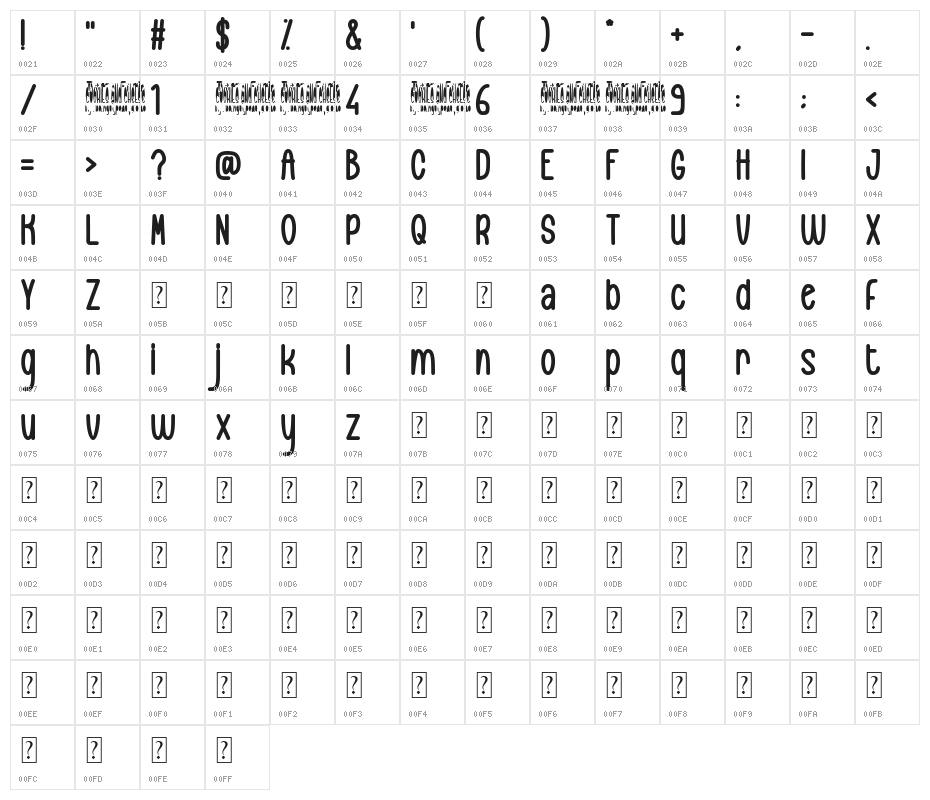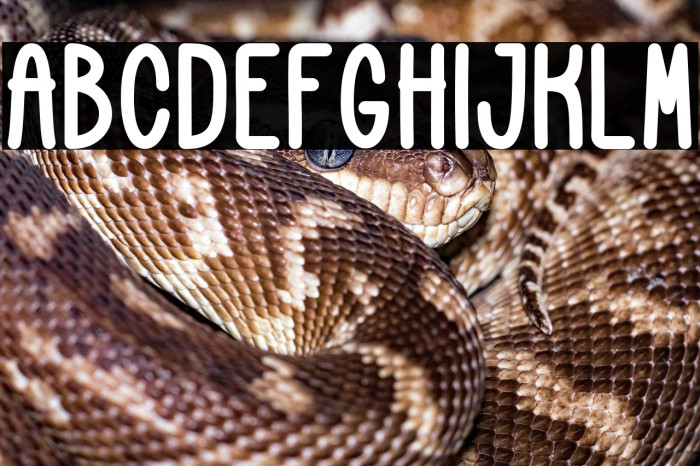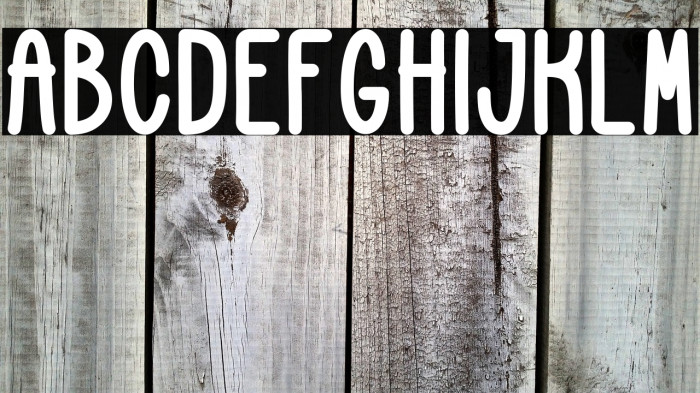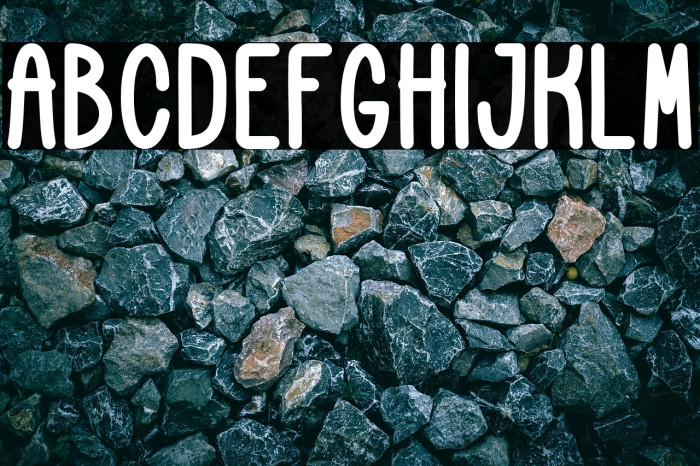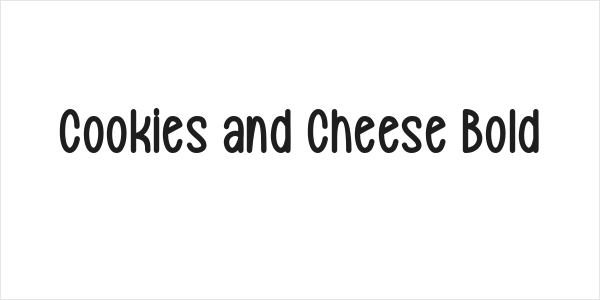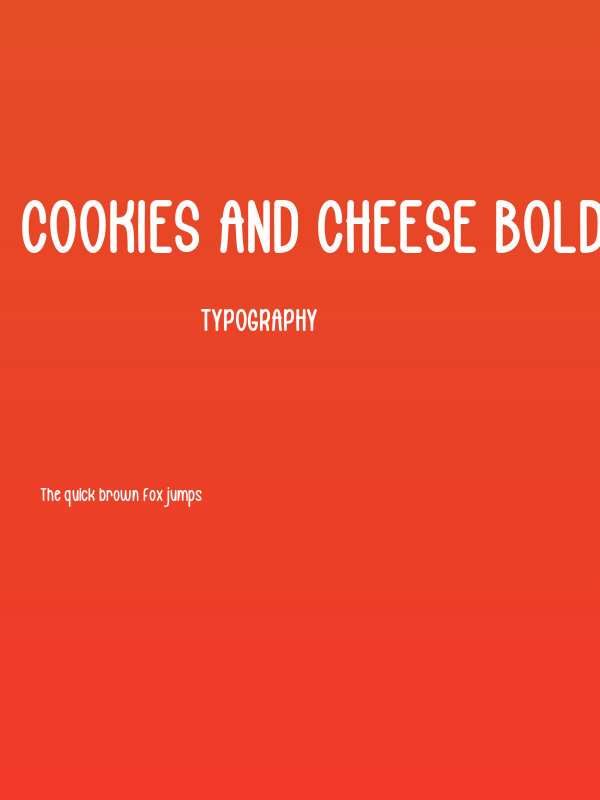
Cookies and Cheese Bold Font
Cookies and Cheese Bold Description
A playful and bold font with rounded edges and a friendly appearance, suitable for informal and fun designs.
| Proposed Projects | Children's books, playful branding, casual invitations. |